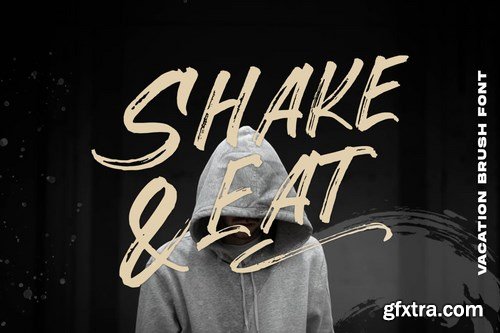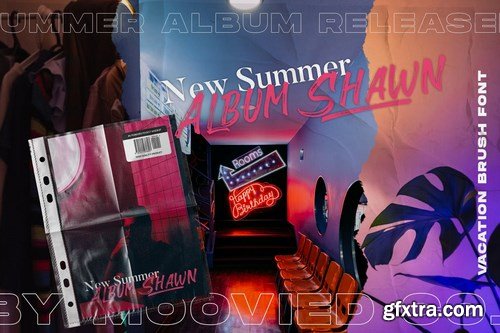
VACATION BRUSH is a type of display font with a distinctive texture brushpen that makes this letter have a somewhat messy texture, but looks balanced between letters and texture. suitable for use as a tshirt design, magazine and book covers, natural photos that require the letters written in front of it, and also brand logos that want to have textured display inscriptions.